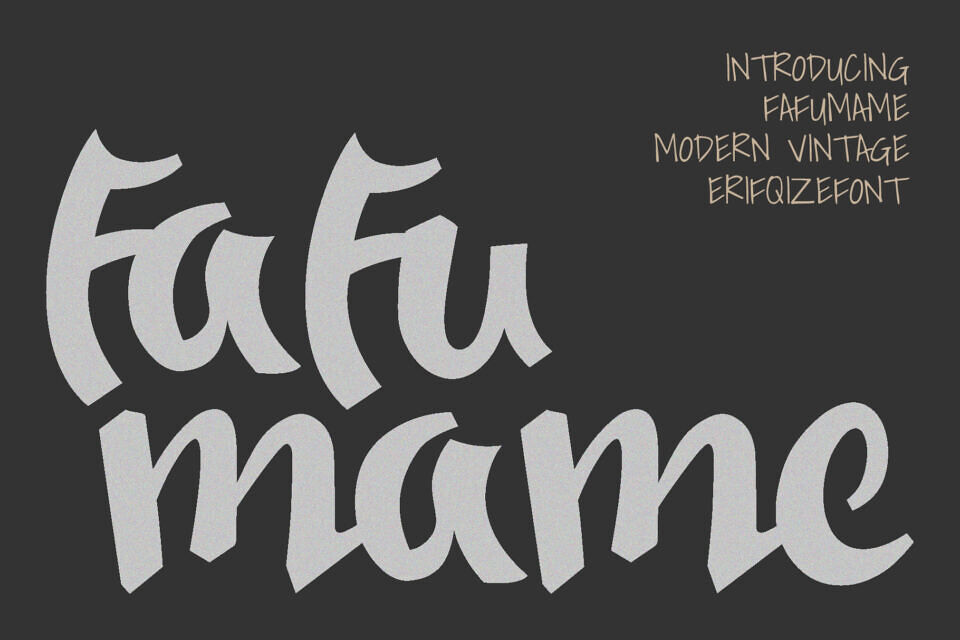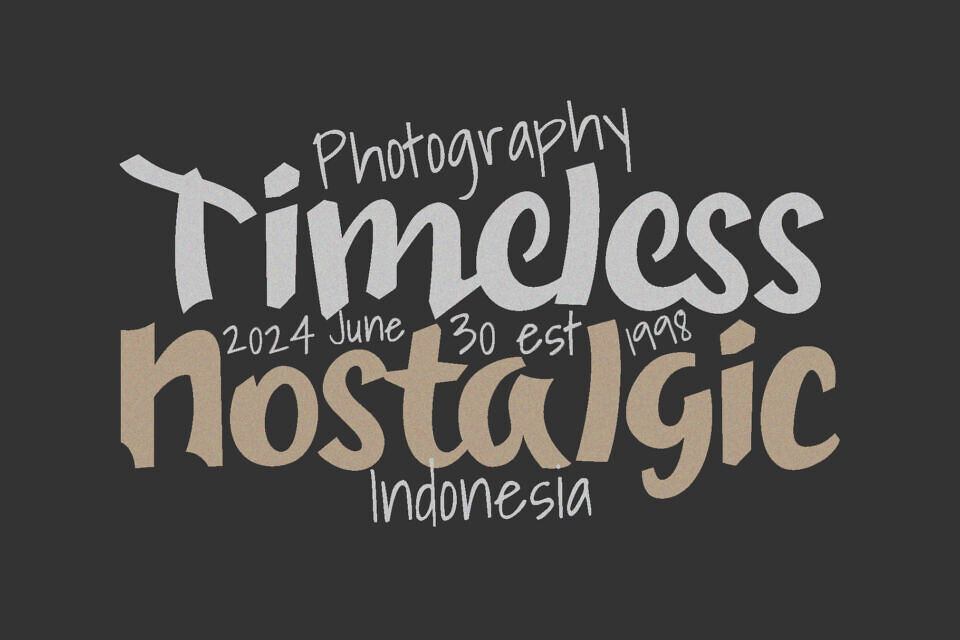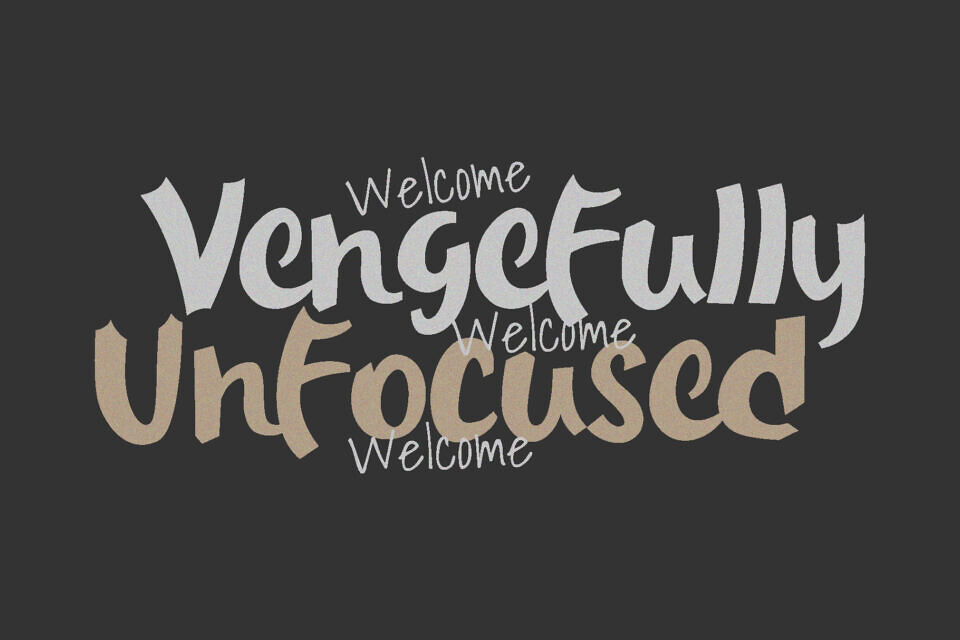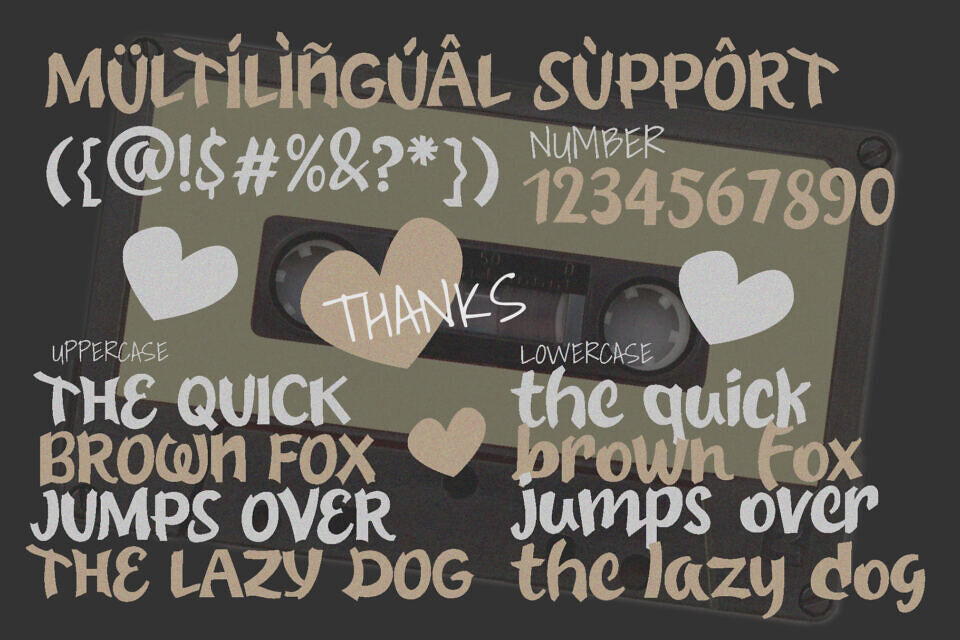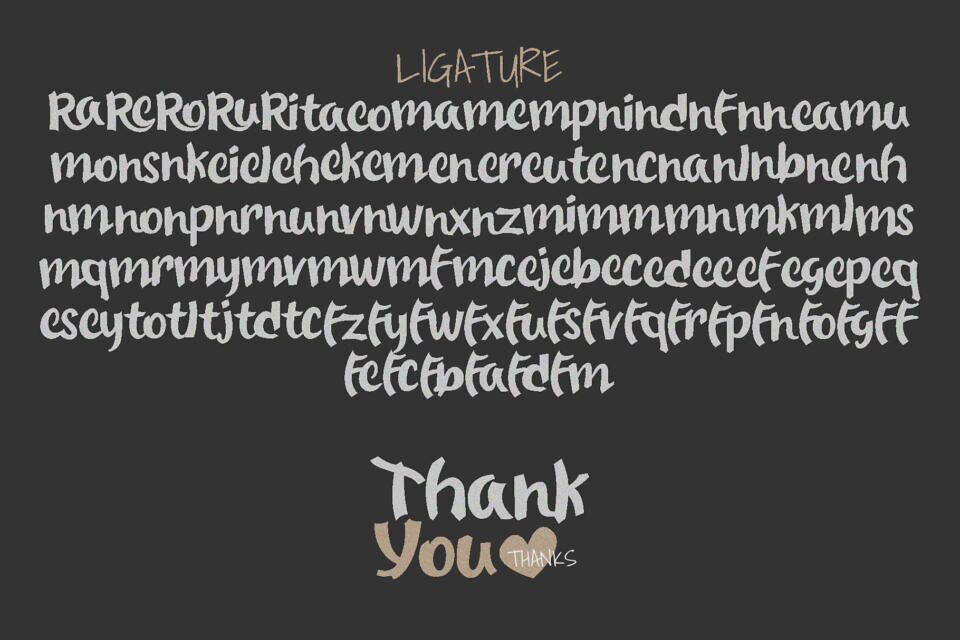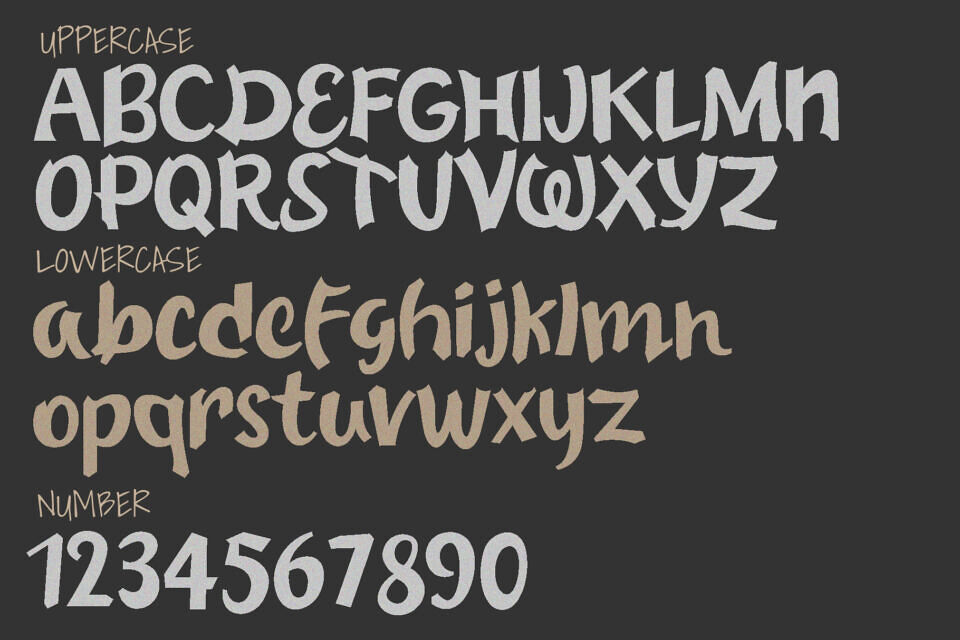
Fafu Mame Font
Fafu Mame is a modern vintage display font that combines playful curves with a bold retro touch. Its hand-crafted letterforms bring warmth and personality to every design, making it perfect for branding, packaging, logos, posters, or any project that needs a nostalgic yet stylish vibe.
With smooth curves and a strong visual rhythm, Fafu Mame captures the essence of modern vintage typography — bold, fun, and full of charm. This font also includes multilingual support to enhance your creative flexibility.